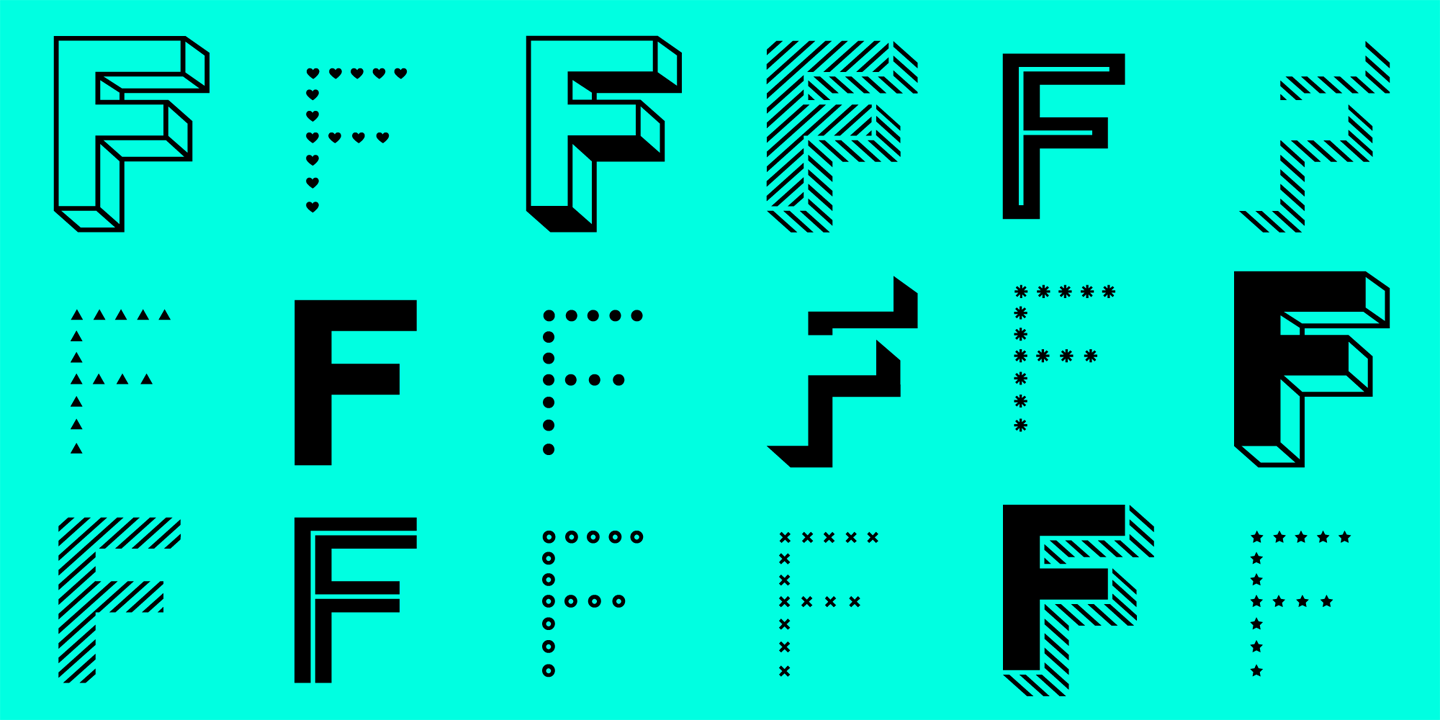
Clown Free Download
Clown Font Free Download
Clown Font Free Download is a playful and vibrant display typeface designed to bring energy and fun to your creative projects. With its bold shapes and quirky style, this font is perfect for children's party invitations, posters, branding, and any design that needs a whimsical and eye-catching touch.
Whether you’re creating festive flyers or colorful logos, Clown Font Free Download offers excellent readability with a lively, animated personality. Its unique character helps your typography stand out in any playful context.